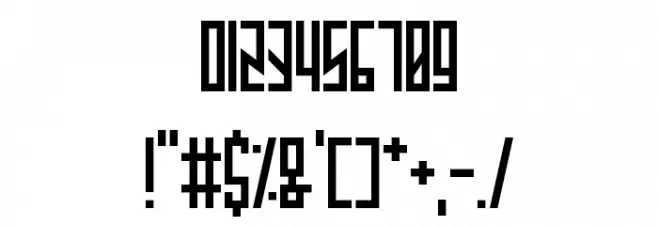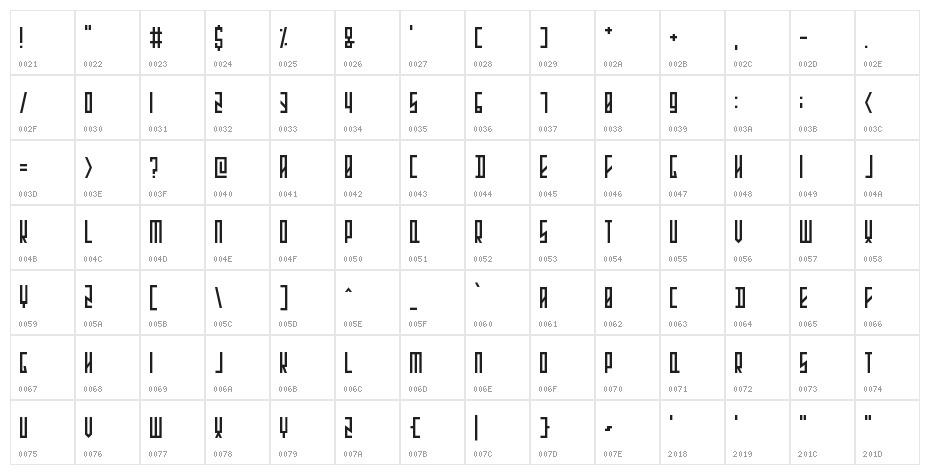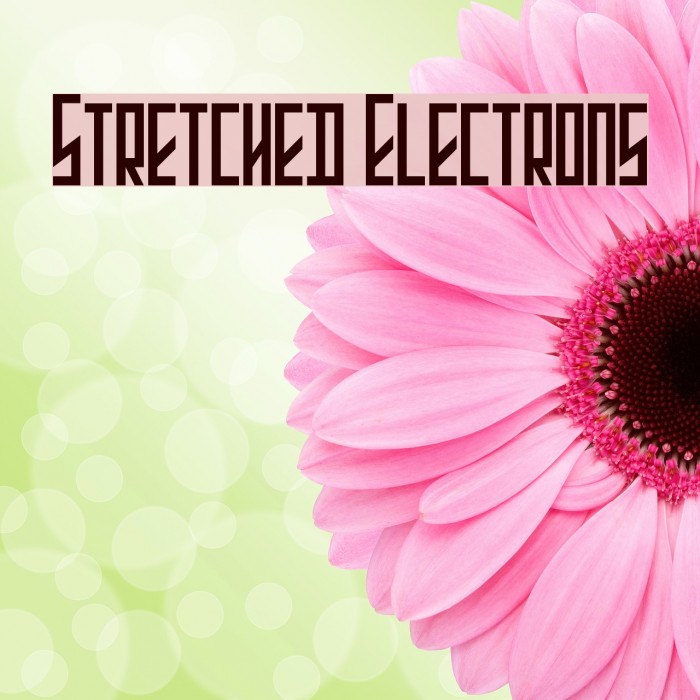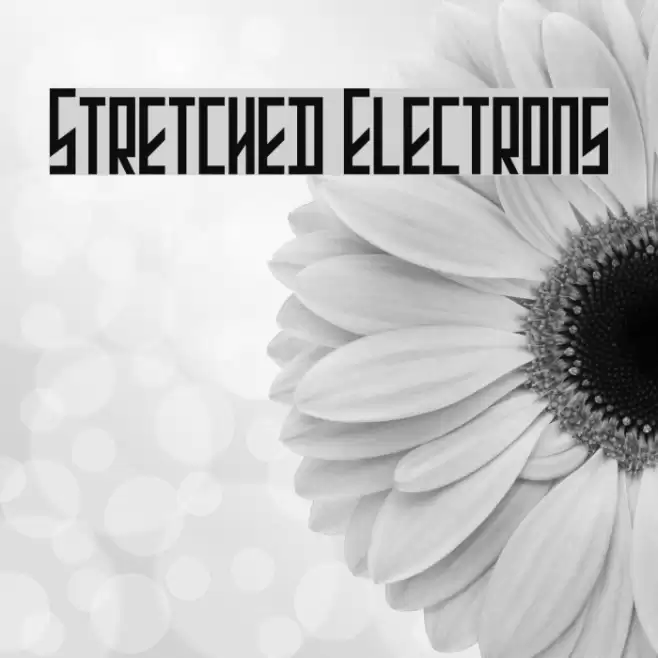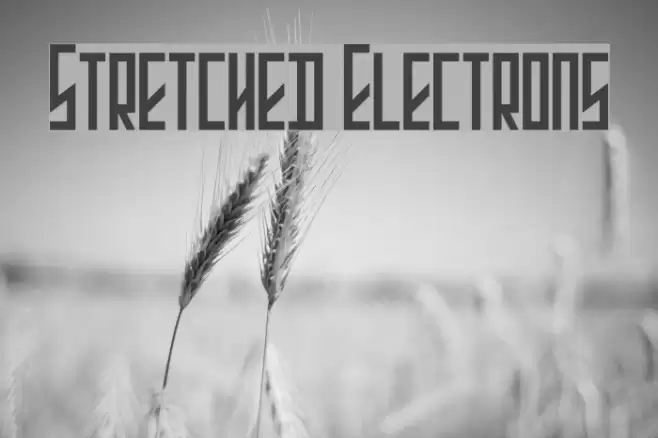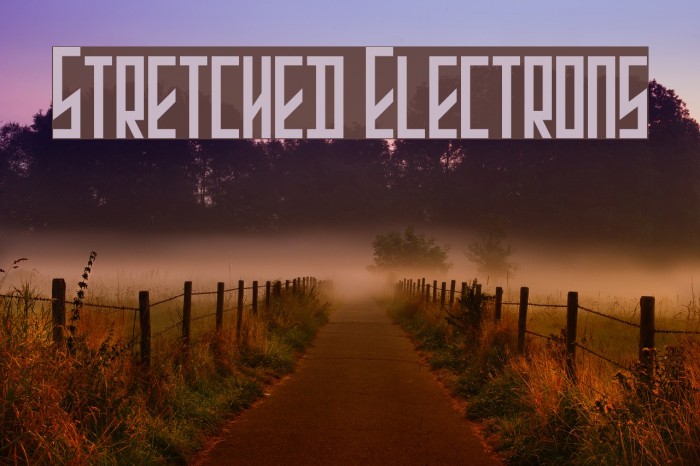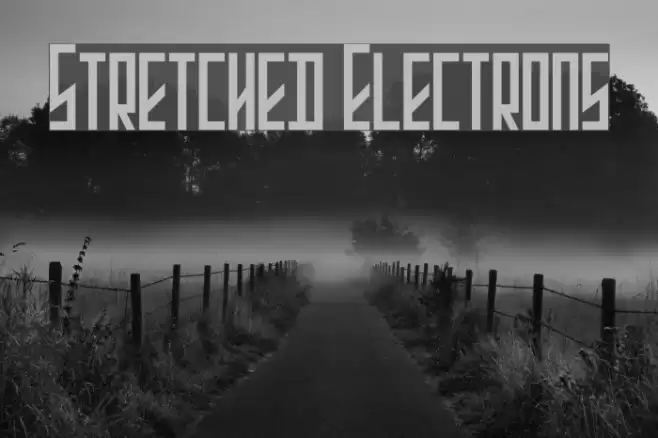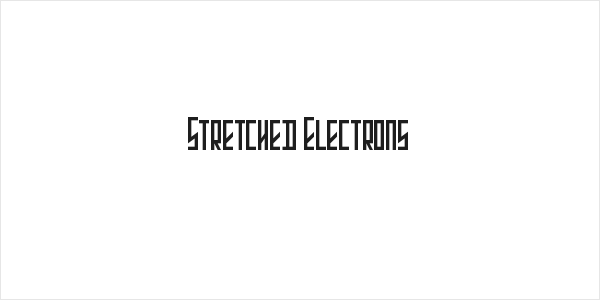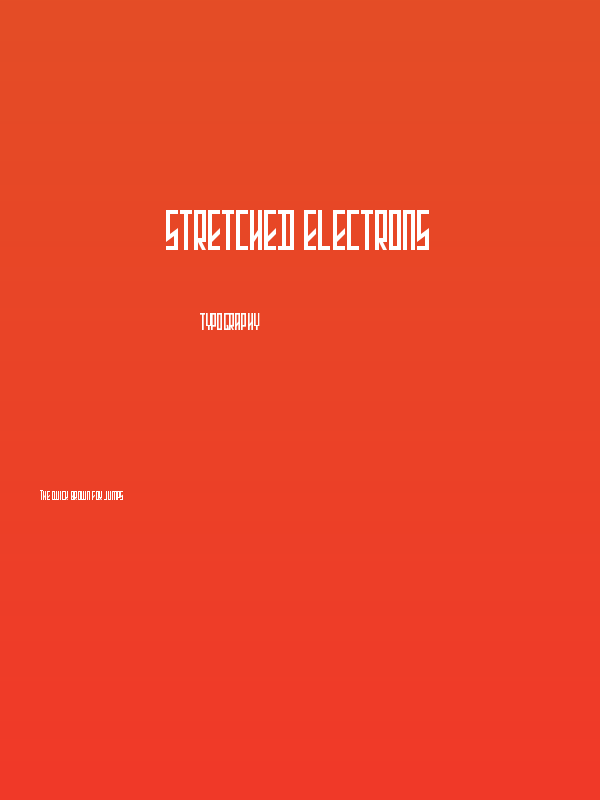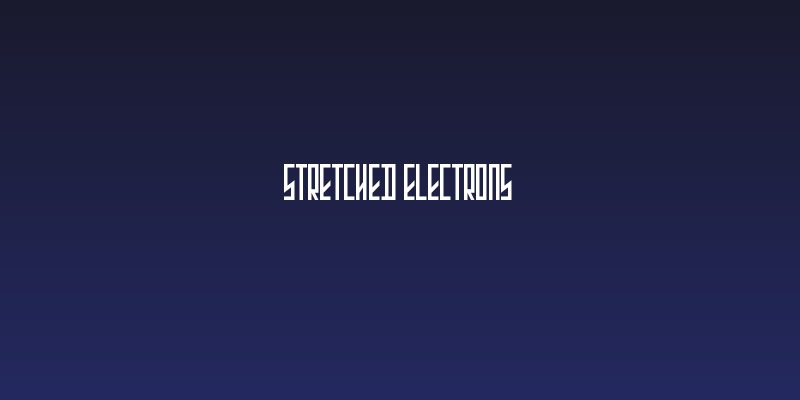
Stretched Electrons Font
Stretched Electrons Description
This font features a bold and geometric design with a distinct futuristic feel. The characters are constructed with sharp angles and straight lines, giving them a mechanical and digital appearance. The uppercase and lowercase letters maintain a consistent height, contributing to a uniform and structured look. The numerals and special characters follow the same design principles, ensuring cohesion across all glyphs. This font's unique style makes it stand out, ideal for projects that require a modern and edgy aesthetic.
| Proposed Projects | Ideal for tech branding, video game titles, sci-fi posters, and digital interfaces. |